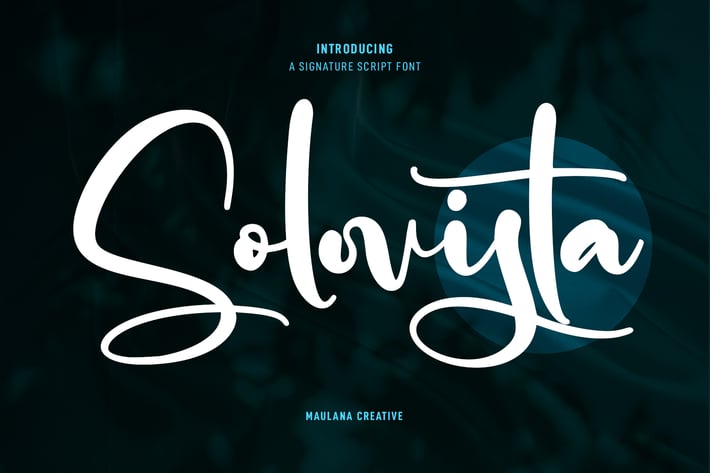
Solovista Signature Script Font
Solovista is an unique modern script font. With regular contrast stroke, fun character with a bit of ligatures and alternates. To give you an extra creative work. Solovista font support multilingual more than 100+ language. This font is good for logo design, Social media, Movie Titles, Books Titles, a short text even a long text letter and good for your secondary text font with sans or serif. Make a stunning work with Solovista font.